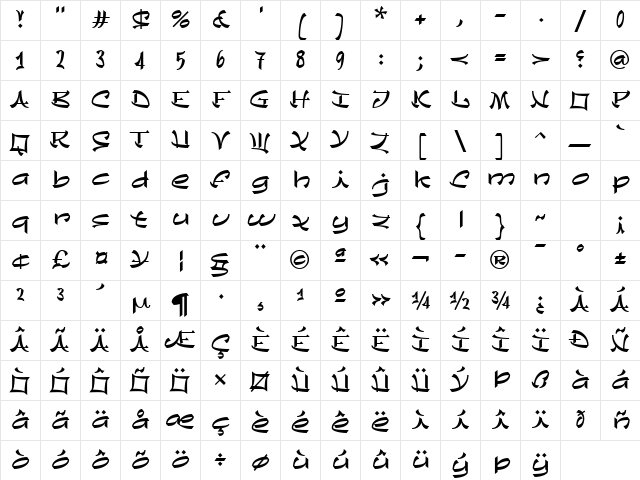
Chineze LT Medium Regular Free Font
Chineze LT Medium Regular
Designer: Peter Huschka
Design Context for Chineze LT Medium
Chineze LT Medium is a composed and adaptable typeface that performs quietly and consistently across a wide range of design contexts. Its slender proportions lend an understated elegance to any composition.
Pro Tip: Use Chineze LT Medium in both headline and body roles to test its range before committing to a single application.